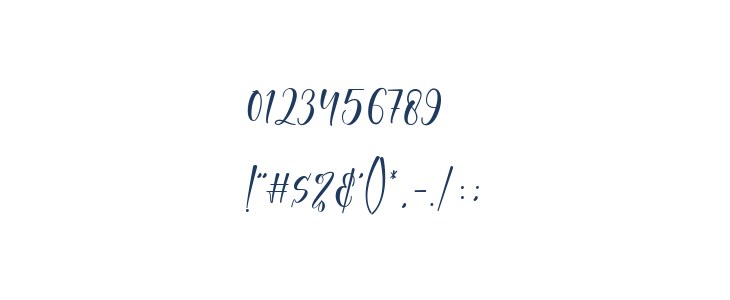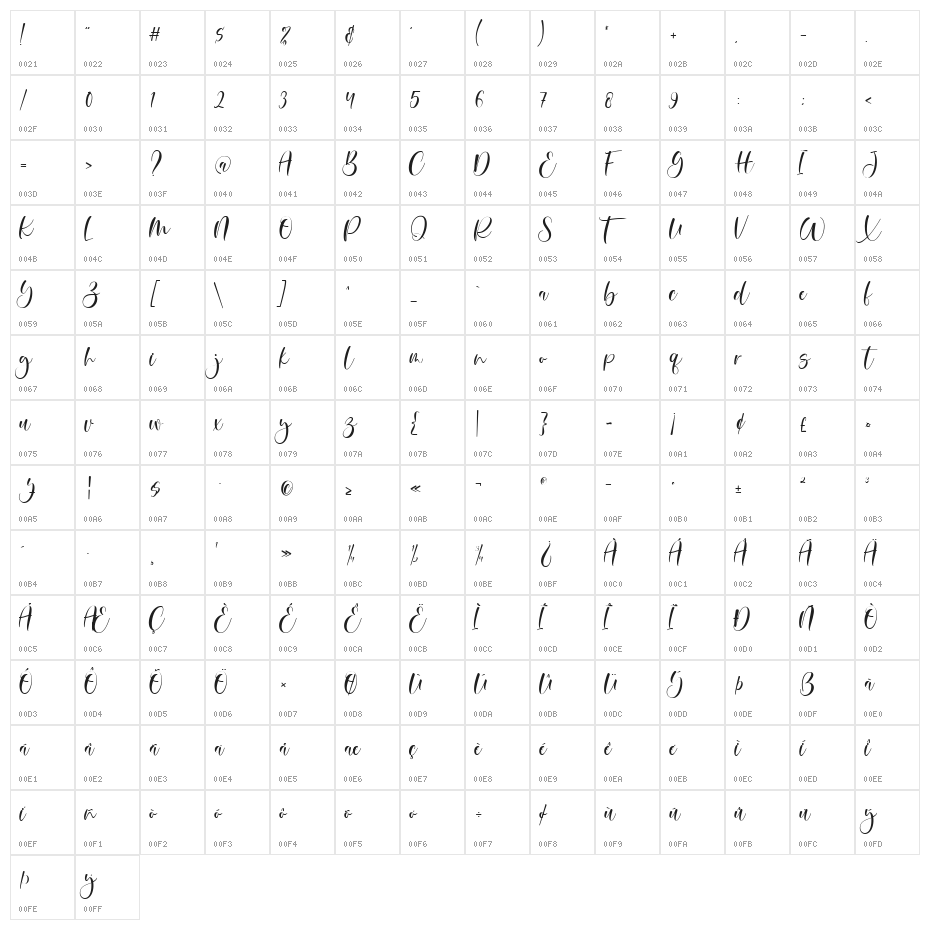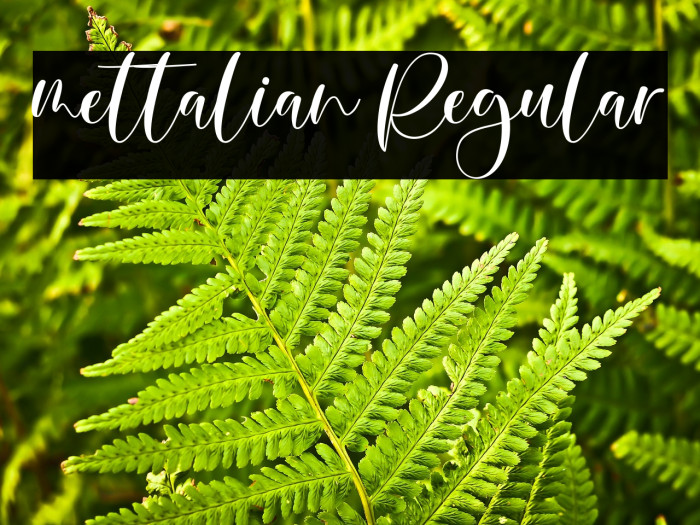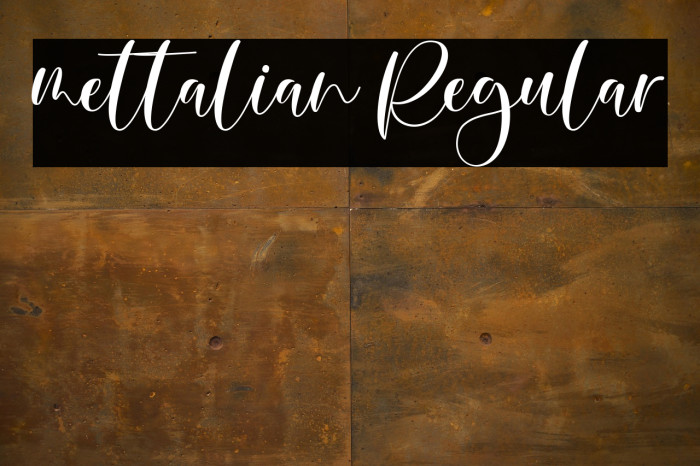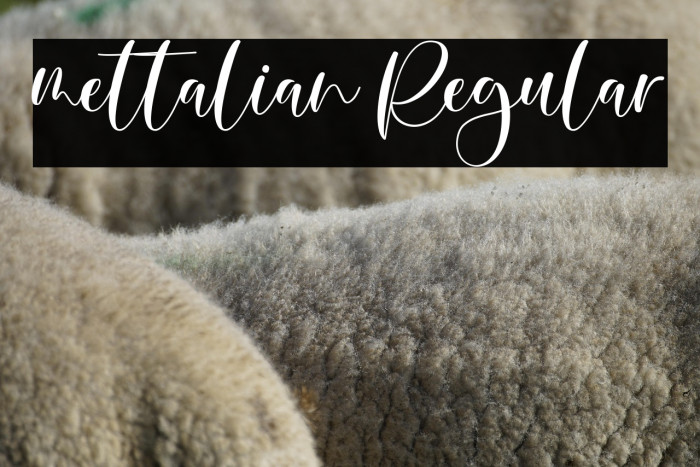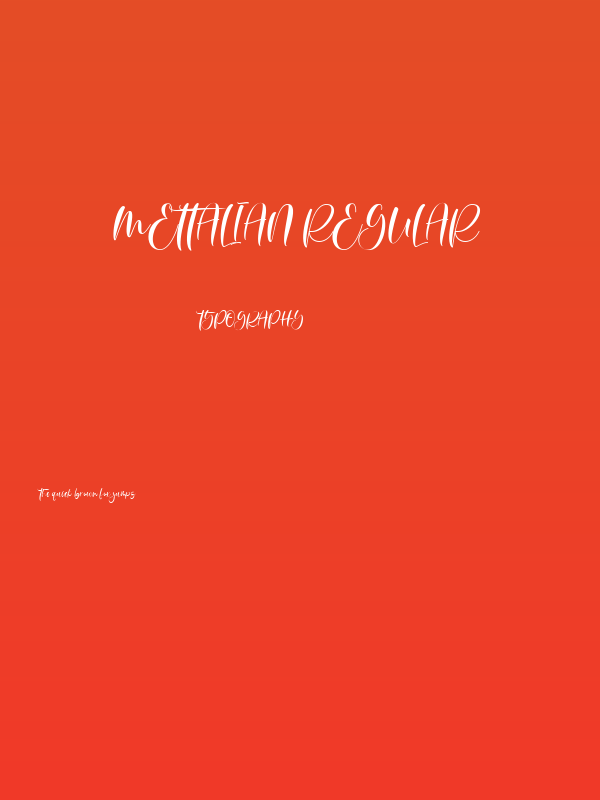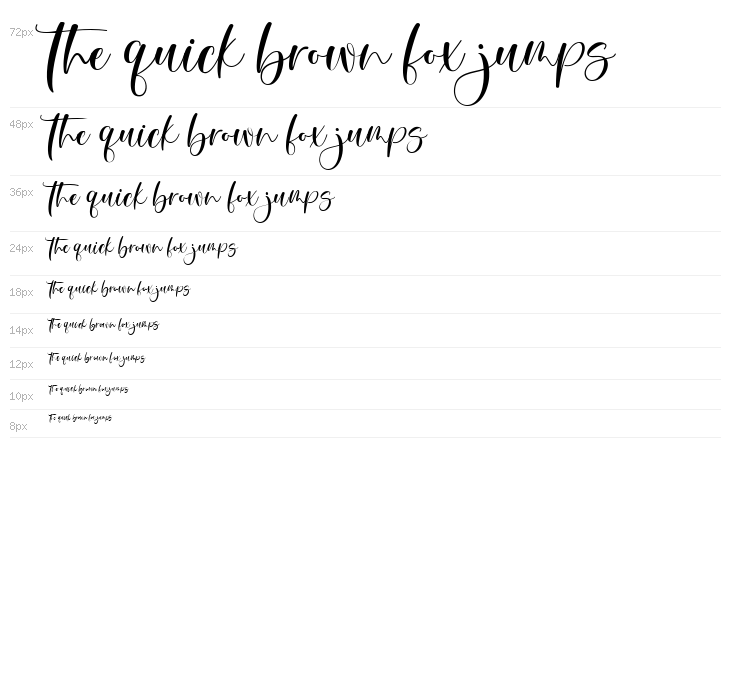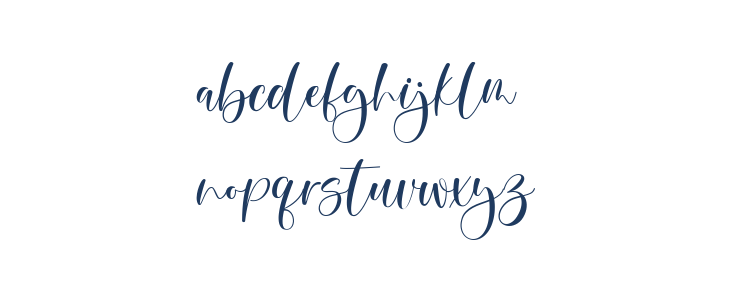
mettalian Regular Font
mettalian Regular Description
This font features an elegant and flowing script style with a modern touch. The characters are interconnected with smooth, sweeping curves and a dynamic rhythm, creating a sense of movement and grace. The uppercase letters are bold and prominent, while the lowercase letters maintain a delicate balance with their intricate loops and swashes. The numerals and special characters are designed to complement the overall aesthetic, maintaining the same fluidity and elegance. This font is perfect for projects that require a touch of sophistication and style.